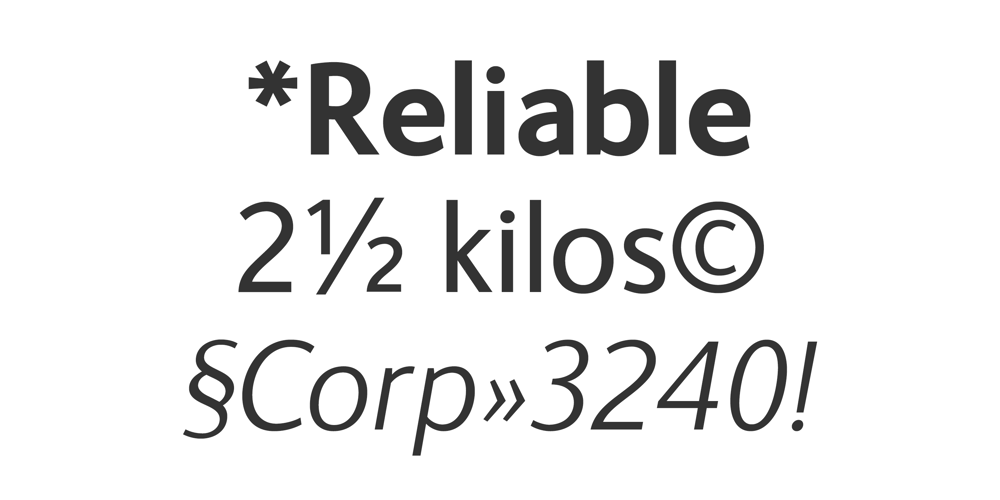
FS Ingrid Font Family was designed by Jason Smith and published by Fontsmith. FS Ingrid contains 6 styles and family package options. FS Ingrid Ice cool Subtle curves coupled with a cool, remote edge – FS Ingrid is a Nordic-flavoured font that’s highly functional but with a sophisticated, muted grace. Designed with screen legibility in mind, FS Ingrid was one of Fontsmith founder Jason Smith’s very first fonts. Jason named it after his wife at the time, having based its character on a certain type of Scandinavian temperament and design approach he’d identified. Understated elegance FS Ingrid’s cool, clean design and subtle, understated elegance have led to its use by Fontsmith clients in everything from magazines to wayfinding systems. “I find this design very straightforward and clear, quite emotionless,” says Jason. “And that lack of quirks make the design quite beautiful and easy to use.” Read me Along with other Fontsmith fonts such as FS Albert and FS Elliot, FS Ingrid has proved a popular choice among charities and other organisations where accessibility is paramount. Its clean lines and basic, elegant form make for a highly legible, as well as subtly stylish font.